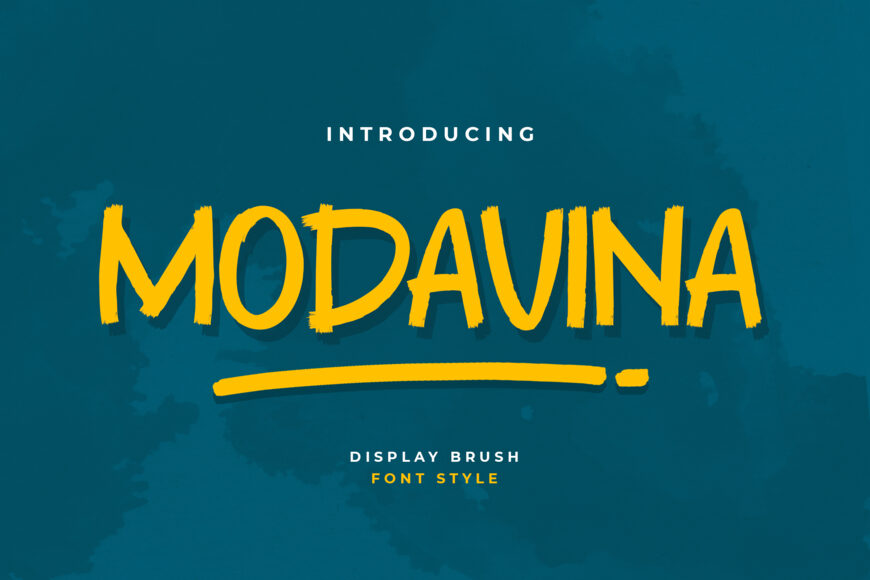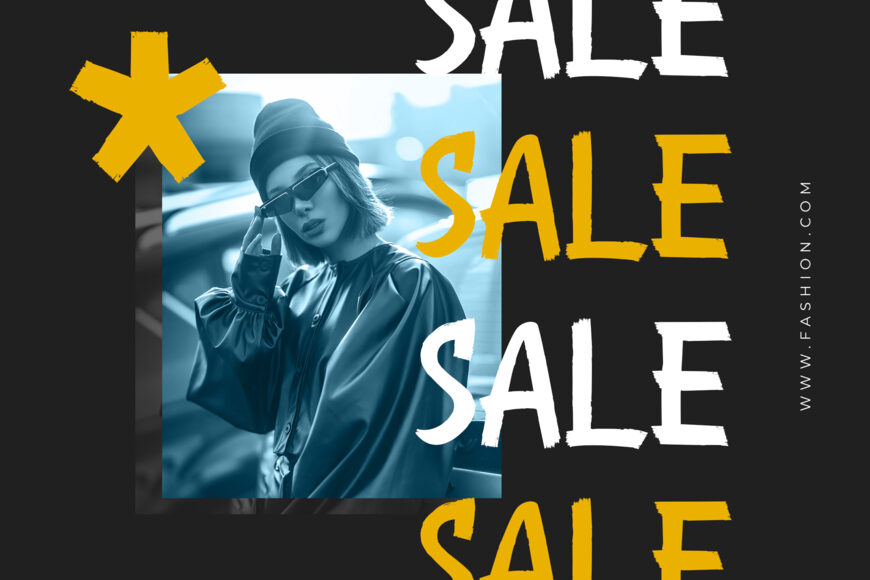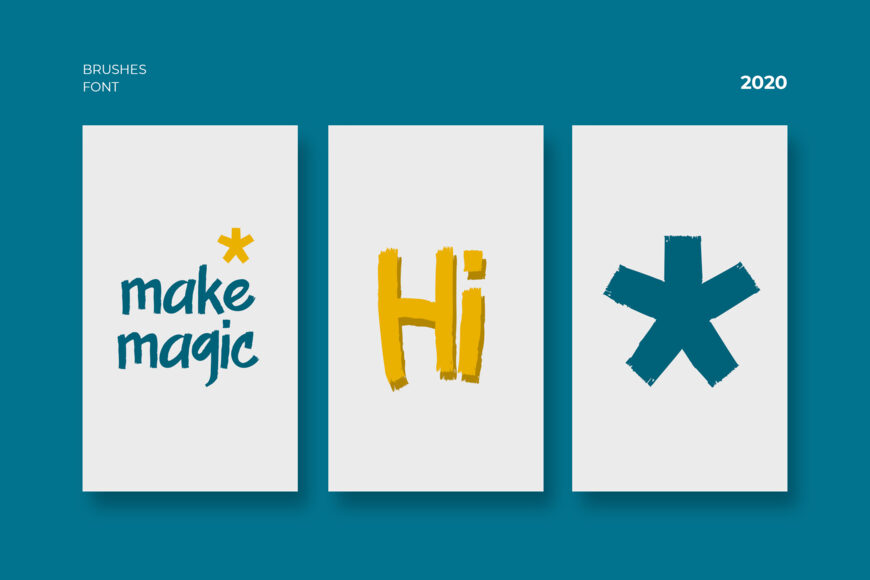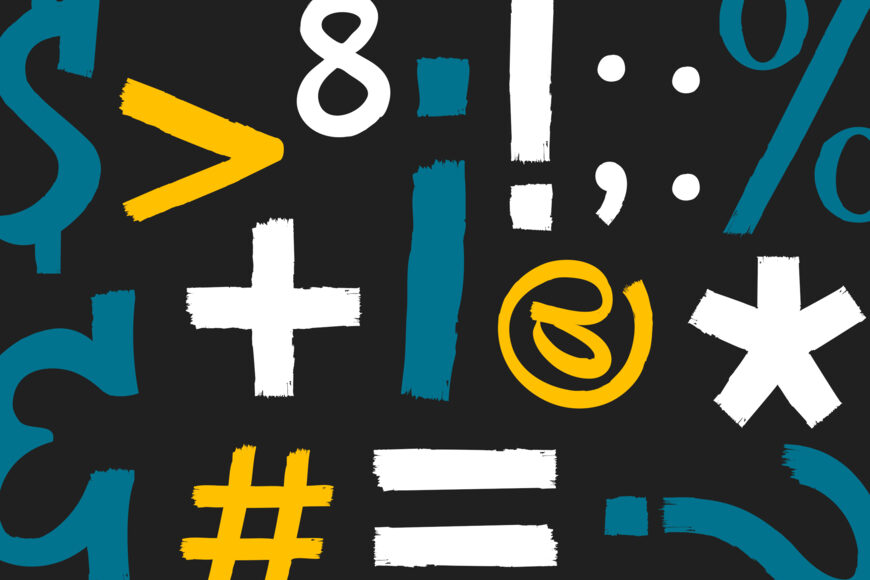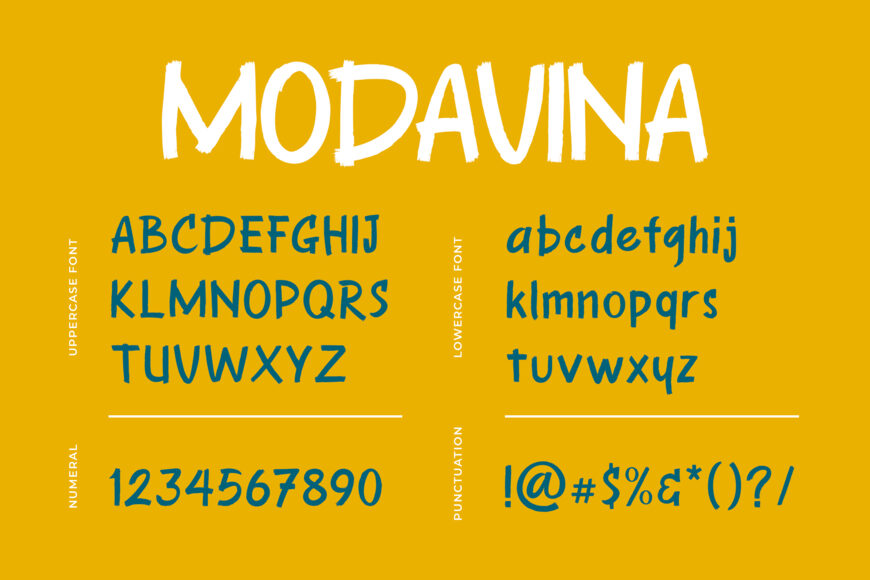
Modavina is a playful hand brush. With its signature brush strokes and also extremely usable in large and small formats. Enjoy the natural texture of the balanced paint effect between fonts, making this font look smooth, clear, and cool.
Suitable for product font design and millennial, casual, and youth-themed events. Perfect and perfect for logo design, brand image, product packaging, merchandise & social media posts, posters, T-shirts, and more.